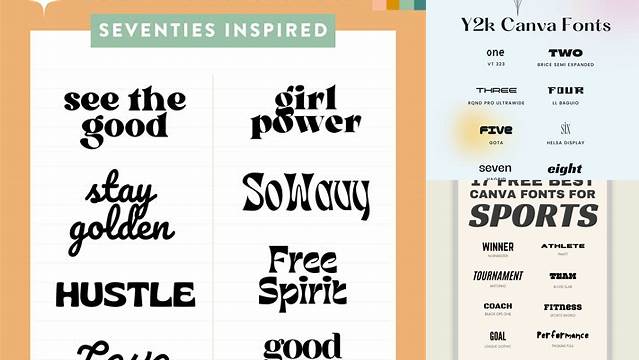
Cool Fonts On Canva: Level Up Your Design Game!
Hey guys! Ever wondered how to make your Canva designs really pop? It all starts with the perfect font. Seriously, the right font can take your project from 'meh' to 'WOW' in seconds. Let's dive into the world of Canva fonts and unlock some seriously cool design secrets. Get ready to explore everything from the basics to some seriously pro tips. You'll be designing like a boss in no time!
1. Exploring the Canva Font Library
Okay, so first things first: let's explore the massive Canva font library. Seriously, it's huge! Canva has a ton of fonts built right in, and finding them is super easy. Just open up your design, click on the text box, and bam! The font menu appears. You can scroll through the list, use the search bar to find something specific, or even filter by style (like serif, sans-serif, or script). I usually start by just browsing around to see what catches my eye.
Fonts on Canva make it easy to get started, and it allows you to test them out directly on your design. Don't be afraid to experiment! Try a few different options to see what vibes best with your project. Sometimes the font you initially think will be perfect isn't the right choice after all. The best part is that most of these fonts are free to use if you have a Canva account, so there are no limits to what you can create. Keep in mind the theme you are trying to express, as well as the branding that you want to follow. It is important to maintain consistency among all of your designs, as well as the projects that you are working on.
2. Understanding Font Types: Serif, Sans-Serif, Script, and More
Let's talk font types! Serif fonts have those little feet or strokes at the end of the letters (think Times New Roman), and they often feel classic and formal. Sans-serif fonts are cleaner and more modern, without the extra strokes (like Arial or Helvetica). Script fonts look like handwriting – they're great for adding a personal touch. And then there are display fonts, which are super decorative and attention-grabbing. Each font type has its own personality. Fonts on Canva come in a diverse range, each evoking different emotions and moods. Whether you want a font that's friendly and approachable, or sleek and professional, or even quirky and fun, Canva has you covered.
Understanding these basic types helps you choose the right font for the job. For example, if you're designing a formal invitation, a serif font might be a good choice. But for a modern website, a sans-serif font might be better. Fonts on Canva are easy to access, which makes it fun to explore the possibilities when you are designing any project. Script fonts are amazing for logos or adding a personal touch, but make sure they are not too hard to read. If you plan on using a script font, make sure you keep it at a larger size so it is legible.
3. Pairing Fonts Like a Pro
Font pairing is an art, my friends! The goal is to find two fonts that look good together – they complement each other without clashing. A good rule of thumb is to pair a serif font with a sans-serif font. For example, you could use a serif font for your headings and a sans-serif font for your body text. Or vice versa! Fonts on Canva can pair well together, but it requires a bit of experimentation to find the right match. You can also use online tools like FontPair to get inspiration. Canva also suggests font pairings, which you can use in your designs. It is a great way to get started if you are not sure what to use. Avoid using two fonts that are too similar – they'll just end up looking boring. And don't go overboard with too many fonts – stick to two or three at most. Too many different fonts can make your design look cluttered and unprofessional.
5. Using Canva Font Combinations for Social Media Graphics
Social media graphics need to be eye-catching and easy to read. Fonts on Canva make it easy to find the perfect font combinations for your posts. Canva offers pre-made font combinations that you can use as a starting point. Just search for "font combinations" in the templates section. Choose fonts that reflect your brand's personality and are appropriate for your target audience. A playful font might work well for a fun brand, while a more serious font might be better for a professional brand. Also, make sure your fonts are legible on mobile devices, as most people will be viewing your graphics on their phones. It's a good idea to test your designs on different devices to make sure they look good everywhere.
6. Best Canva Fonts for Logos
Your logo is the face of your brand, so it needs a font that's memorable and professional. Some popular choices for logos include Montserrat, Bebas Neue, and Raleway. These fonts are clean, modern, and easy to read. Fonts on Canva will make your logo professional, and there are many options to choose from. Avoid using fonts that are too trendy or decorative, as they may not age well. Your logo should be timeless and versatile, so it can be used in a variety of contexts. It's also a good idea to check if the font is available for commercial use, as some fonts have licensing restrictions. Make sure your font is appropriate for both web and print, and that the logo will be effective in all mediums.
7. Canva Fonts for Presentations That Command Attention
Presentations need to be clear, concise, and engaging. Use fonts that are easy to read from a distance, such as Open Sans, Lato, or Roboto. Fonts on Canva make creating presentation slides easier than ever. Avoid using fonts that are too small or too decorative, as they can be difficult to read. Use a consistent font throughout your presentation to maintain a professional look. You can also use different font weights (bold, italic) to emphasize key points. Keep your font sizes consistent and large enough to be legible for everyone in the room. And don't forget to use visuals, such as images and charts, to break up the text and keep your audience engaged.
8. Creating a Brand Kit with Your Favorite Canva Fonts
A brand kit is a collection of your brand's visual elements, including your logo, colors, and fonts. Creating a brand kit in Canva helps you maintain consistency across all your designs. Fonts on Canva can be saved to your brand kit, making it easy to access them whenever you need them. Just go to the Brand Kit section and add your fonts, colors, and logo. This will ensure that all your designs are consistent with your brand's identity. A brand kit helps you save time and effort by having all your brand assets in one place. Share your brand kit with your team to ensure everyone is using the same fonts and colors.
9. Pairing Script Fonts with Sans-Serif Fonts
Script fonts add a touch of elegance and personality to your designs, but they can be difficult to read if overused. Pairing a script font with a sans-serif font creates a nice balance between style and readability. Fonts on Canva that are scripts go well with sans-serif to ensure your audience can read your brand. Use the script font for headings or short phrases, and the sans-serif font for body text. This will make your design more visually appealing and easier to read. Make sure the script font is legible and not too overwhelming. Choose a sans-serif font that complements the script font without competing with it. Experiment with different font sizes and weights to find the perfect combination.
10. Using Font Effects in Canva: Shadow, Outline, and More
Canva offers a variety of font effects that can add depth and dimension to your designs. You can add shadows, outlines, glows, and other effects to your fonts. Fonts on Canva are made more dynamic with a variety of different effects that can be added. These effects can help your text stand out and make your designs more visually appealing. However, use font effects sparingly, as too much can make your design look cluttered and unprofessional. Experiment with different effects to see what works best for your design. Make sure the effects don't detract from the readability of the text. Font effects are a great way to add a unique touch to your designs.
11. Understanding Font Licensing for Commercial Use
When using fonts for commercial purposes, it's important to understand the licensing terms. Some fonts are free for commercial use, while others require a license. Fonts on Canva will require commercial licenses if you use outside fonts. Always check the font's license before using it in your designs. Using a font without the proper license can result in legal issues. Canva offers a selection of free fonts that are licensed for commercial use. If you're unsure about a font's license, it's best to err on the side of caution and choose a different font. It's also a good idea to keep a record of the fonts you've used and their corresponding licenses.
12. The Psychology of Fonts: How Fonts Affect Perception
Fonts can evoke different emotions and perceptions. Serif fonts often convey a sense of tradition and formality, while sans-serif fonts feel modern and clean. Fonts on Canva are psychological depending on the font that you choose, impacting the overall perception of your designs. Script fonts can add a touch of elegance and personality. Consider the message you want to convey and choose fonts that align with that message. Use fonts that are appropriate for your target audience. A playful font might work well for a fun brand, while a more serious font might be better for a professional brand. Pay attention to the font's weight, size, and spacing, as these factors can also affect perception.
13. Kerning, Tracking, and Leading: Fine-Tuning Your Typography
Kerning, tracking, and leading are typographic adjustments that can improve the readability and visual appeal of your text. Kerning refers to the space between individual letters, tracking refers to the overall spacing between letters, and leading refers to the space between lines of text. Fonts on Canva look best when kerning, tracking, and leading is optimized. Fine-tuning these settings can make your text look more polished and professional. Canva allows you to adjust kerning, tracking, and leading in your designs. Experiment with different settings to see what works best for your fonts. Pay attention to these details, as they can make a big difference in the overall look and feel of your designs.
14. Finding Free Font Resources Outside of Canva
While Canva offers a great selection of fonts, you can also find free font resources outside of Canva. Websites like Google Fonts, Font Squirrel, and DaFont offer a wide variety of free fonts for personal and commercial use. Fonts on Canva can be limited, but there are alternatives available online. Always check the font's license before using it in your designs. Be careful when downloading fonts from unknown sources, as they may contain malware. Stick to reputable websites and always scan downloaded files with a virus scanner. Using external font resources can give you more flexibility and variety in your designs.
15. How to Create a Font Mood Board for Your Brand
A font mood board is a collection of fonts that represent your brand's personality and style. Creating a font mood board can help you choose the right fonts for your brand and maintain consistency across all your designs. Fonts on Canva can be presented in a mood board to align the brand. Gather fonts that you like and that you think would be a good fit for your brand. Experiment with different font combinations and styles. Consider the emotions and perceptions that each font evokes. Share your font mood board with your team to get their feedback. Use your font mood board as a reference when choosing fonts for your designs.
16. Using Emojis and Symbols in Canva Fonts
Emojis and symbols can add a fun and playful touch to your designs. Canva allows you to use emojis and symbols in your text. Fonts on Canva can include emojis to connect more with your audience. Use emojis and symbols sparingly, as too much can make your design look cluttered and unprofessional. Choose emojis and symbols that are relevant to your message. Make sure the emojis and symbols are compatible with your fonts. Experiment with different sizes and colors to see what works best for your design. Emojis and symbols can be a great way to add personality to your designs.
17. Designing Effective Call-to-Action Buttons with Canva Fonts
Call-to-action (CTA) buttons are an essential part of any marketing design. Use fonts that are clear, concise, and easy to read on your CTA buttons. Fonts on Canva can be used effectively with call to action buttons, encouraging your audience to click. Choose fonts that stand out from the rest of your design. Use a font color that contrasts with the background color of the button. Make sure the font size is large enough to be legible. Use a font that conveys a sense of urgency or excitement. Experiment with different font styles and weights to see what works best for your CTA buttons.
18. Creating Typography-Based Designs in Canva
Typography-based designs focus on the use of fonts as the primary design element. These designs can be simple and elegant or bold and eye-catching. Fonts on Canva make it easy to design typography-based graphics, and can really allow for the font choice to take center stage. Use different font sizes, weights, and styles to create visual interest. Experiment with different font combinations. Consider the overall composition and layout of your design. Use negative space to create balance and harmony. Typography-based designs can be a great way to showcase your creativity and communicate a message in a unique way.
19. How to Animate Your Canva Fonts for Engaging Videos
Animation can add a dynamic and engaging element to your videos. Canva allows you to animate your fonts to make them move, fade, or change in other ways. Fonts on Canva can be animated, creating a dynamic element to your designs. Use animation sparingly, as too much can be distracting. Choose animation styles that are appropriate for your message. Make sure the animation is smooth and seamless. Experiment with different animation speeds and durations. Animated fonts can be a great way to grab attention and keep your audience engaged.
20. Using Canva Fonts for Print Materials: Business Cards, Flyers, and More
When designing print materials, it's important to choose fonts that are legible and professional. Use fonts that are appropriate for the type of material you're designing. Fonts on Canva allow for a variety of printing choices, like flyers and business cards. Make sure the font size is large enough to be read easily. Use a font color that contrasts with the background color. Avoid using fonts that are too decorative or trendy. Choose fonts that are appropriate for your brand. Print materials are a tangible representation of your brand, so it's important to make a good impression.
21. Adding Texture to Fonts
Add depth and visual interest to your fonts on Canva by incorporating textures. Overlays, patterns, and subtle effects transform the look and feel, making them stand out with dimension.
22. Creating 3D Text Effects
Give your words dimension with 3D text effects in Canva. Turn flat fonts on Canva into eye-catching, three-dimensional designs that grab attention and add depth to your visuals.
23. Utilizing Gradient Colors on Fonts
Infuse vibrancy and energy into your typography with gradient colors on fonts on Canva. Experiment with smooth transitions or bold contrasts to create visually stunning text effects.
24. Combining Handwriting and Standard Fonts
Mix the charm of handwriting with the clarity of standard fonts on Canva. Combining these styles adds a personal touch while maintaining readability, perfect for various design projects.
25. Working with Rounded Fonts for a Friendly Look
Convey approachability and warmth with rounded fonts on Canva. Ideal for designs targeting a friendly audience, these fonts offer a softer, more inviting aesthetic.
26. How to Choose the Right Font Size for Different Projects
Ensure readability and impact by choosing the right font size for each project. Consider the medium, audience, and purpose when determining the size of your fonts on Canva.
27. Adding Italics and Bold Formatting to Text
Enhance emphasis and hierarchy within your text by skillfully adding italics and bold formatting to fonts on Canva. Use these elements to highlight key points and create visual interest.
28. Designing Quote Graphics with Canva Fonts
Craft visually appealing quote graphics using fonts on Canva. Experiment with typography, backgrounds, and layouts to create inspirational and shareable content.
29. Matching Fonts to Images: A Visual Guide
Create harmonious designs by matching fonts on Canva to the visual elements in your images. Consider the image's mood, style, and message when selecting complementary typefaces.
30. Using Canva Fonts to Create Stunning Watermarks
Protect your creative work by crafting stunning watermarks with fonts on Canva. Design subtle yet effective watermarks that safeguard your images and add a professional touch.